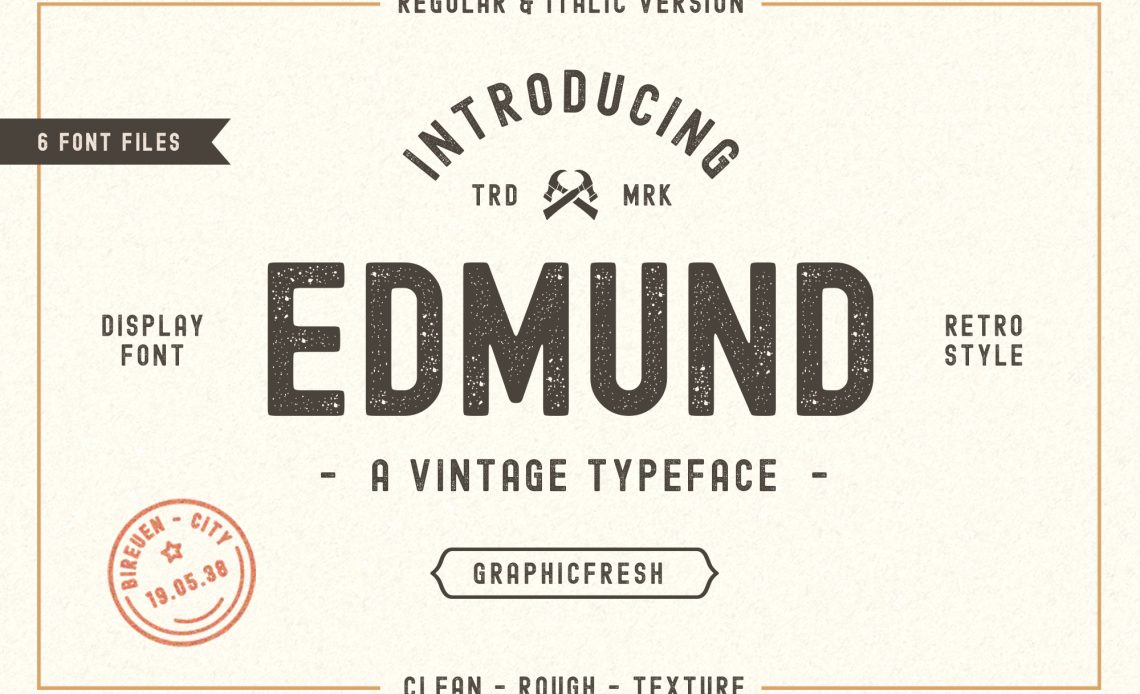
Looking for a font that will add a touch of vintage charm to your designs? Look no further than The Edmund Font! Created by Graphicfresh, this stunning display font is the perfect way to elevate your design projects.
The Edmund Font is more than just a font - it's a whole family of fonts, with several styles to choose from. Whether you're looking for something bold and eye-catching, or something more understated and elegant, The Edmund has got you covered.
But what really sets The Edmund Font apart is its versatility. This font is perfect for a wide range of applications, from large scale designs like posters and billboards, to more subtle uses like body text and captions. And no matter how you use it, The Edmund Font is sure to add a touch of style and sophistication to your work.